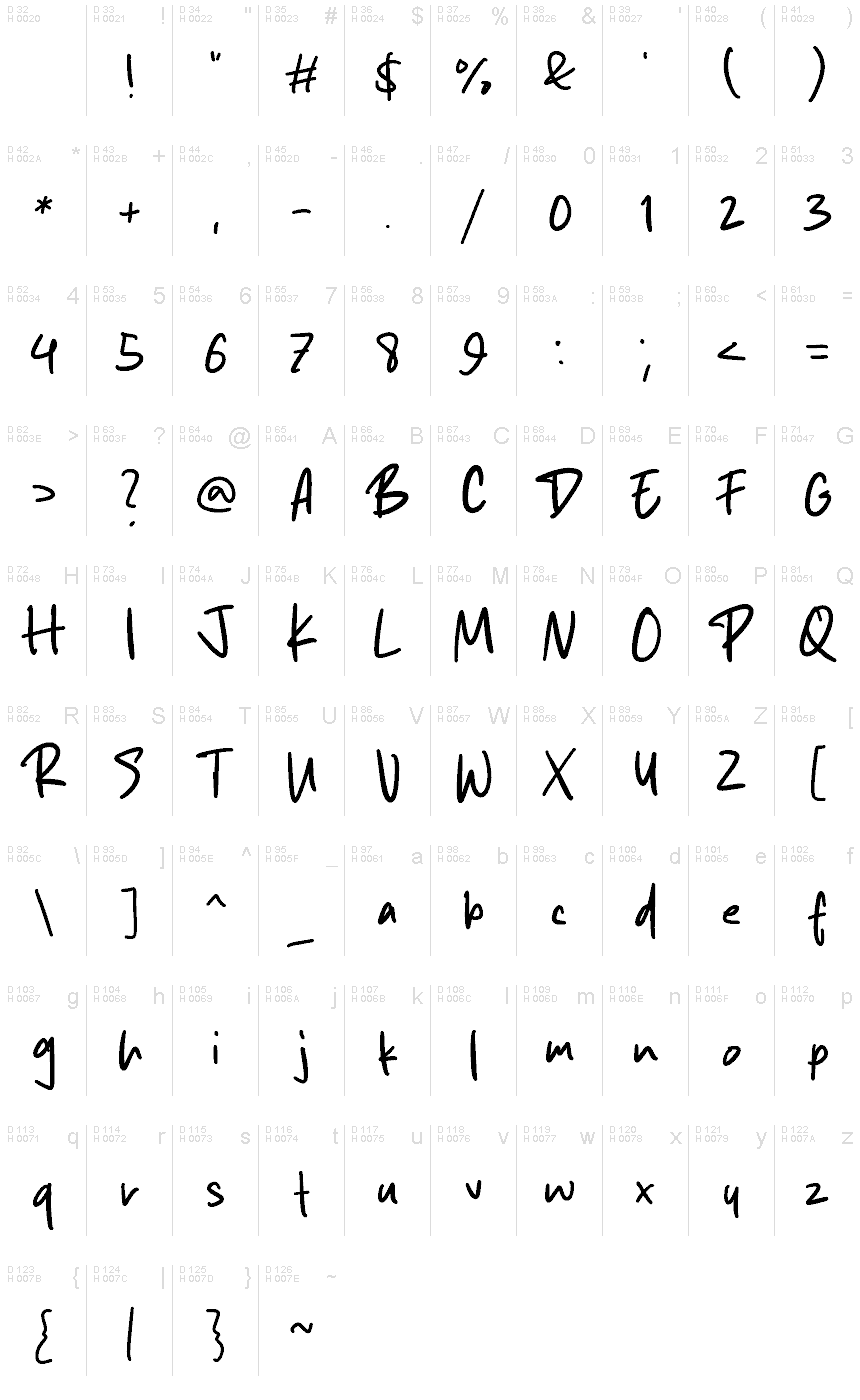
Studio Place
Studio Place font by MJType captures a casual, expressive aesthetic with artistic flair. Its handwritten style provides a modern script that delivers a personal touch to any project. With its clean, legible, and youthful feel, this free handwritten font is perfect for both print and digital applications where personality is key.
Incorporate it into notebooks, bookmarks, business cards, quotes, headlines, product tags or labels. Choose it for your magazine project or essay covers. Create beautiful branding material with original logos and packaging designs; give titles (of books or ebooks) that touch long-lasting impressions.